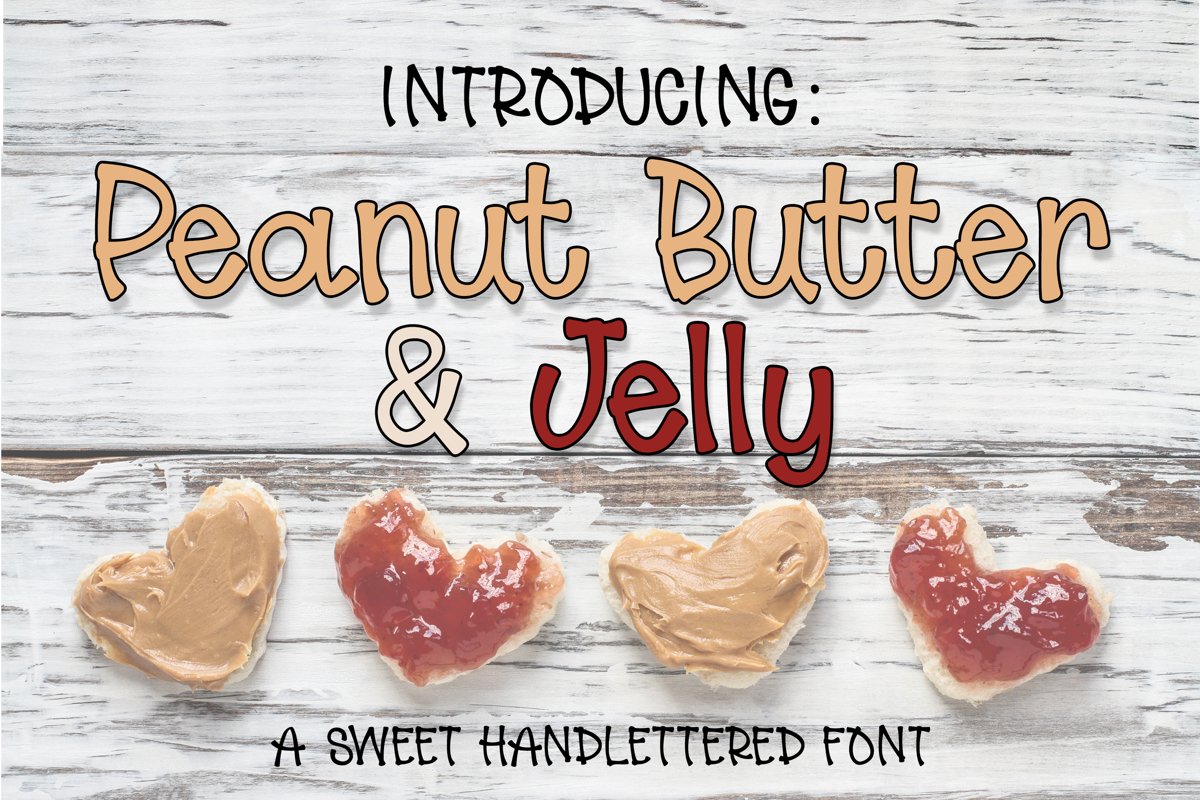
Peanut Butter & Jelly Font - Hand Lettered
Meet:
'Peanut Butter & Jelly'
A Sweet hand lettered font that looks great in both lowercase and upper case!
Make some awesome designs, invitations, t-shirts, logos, web design, home decor or even branding with this unique font.